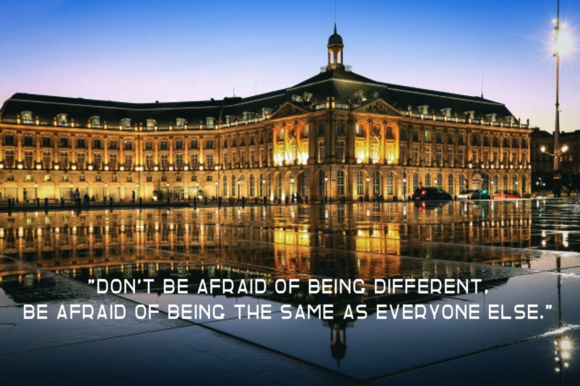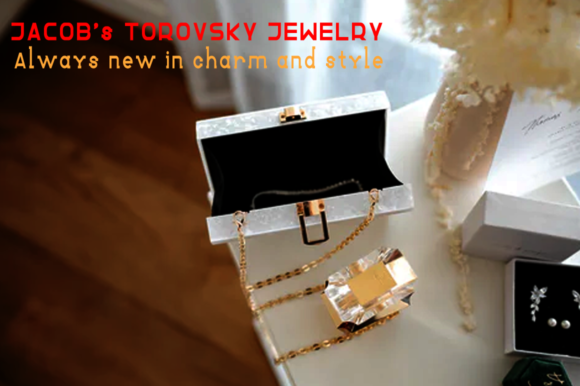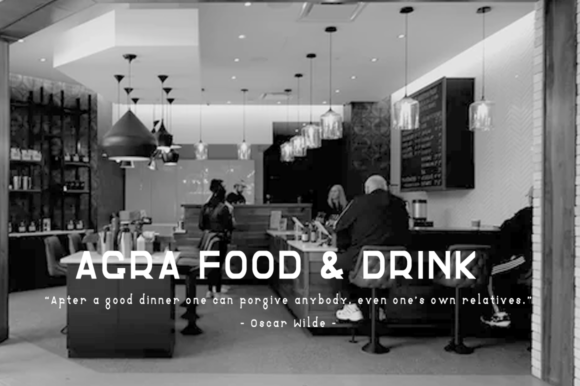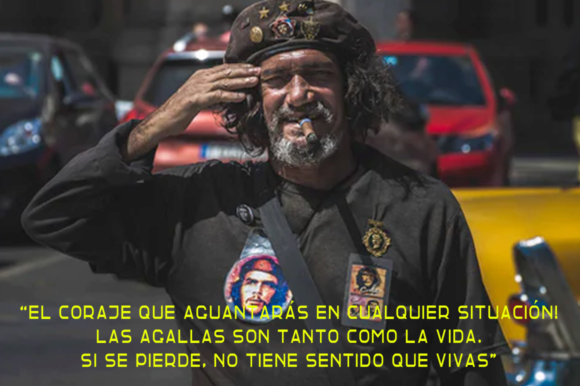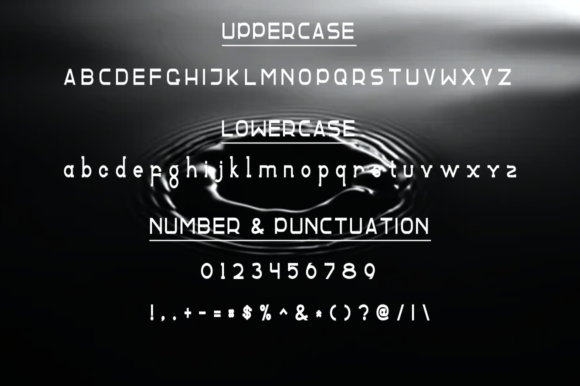
Bordeaux Font: Elevate Your Designs with a Simple yet Powerful Sans Serif Font
In the world of typography, fonts play a crucial role in making or breaking a design. A well-chosen font can elevate your creative project, making it stand out from the crowd. If you’re a designer or crafter looking for a font that exudes simplicity and techno appeal, look no further than the Bordeaux Font. In this article, we’ll delve into the world of Bordeaux Font, exploring its features, benefits, and uses.
What is Bordeaux Font?
Bordeaux Font is a sans serif font that boasts a clean and modern aesthetic. Its simplicity makes it an incredibly versatile font, suitable for a wide range of projects. Whether you’re designing a logo, brochure, website, or social media graphics, Bordeaux Font is an excellent choice. Its techno look gives it an edge, making it perfect for projects that require a modern and edgy feel.
Key Features of Bordeaux Font
- Simple and Clean Design: Bordeaux Font features a minimalist design that ensures clarity and legibility.
- Techno Appeal: The font’s techno look makes it perfect for projects that require a modern and edgy feel.
- Sans Serif: The font’s sans serif design ensures that it’s easy to read, even at small sizes.
- Highly Versatile: Bordeaux Font can be used for a wide range of projects, from logos and brochures to websites and social media graphics.
Benefits of Using Bordeaux Font
So, why choose Bordeaux Font for your next project? Here are just a few benefits of using this powerful font:
- Improved Readability: Bordeaux Font’s clean design ensures that your text is easy to read, even at small sizes.
- Enhanced Visual Appeal: The font’s techno look adds a modern touch to your designs, making them more visually appealing.
- Increased Versatility: Bordeaux Font can be used for a wide range of projects, making it a valuable addition to your font library.
- Easy to Pair: The font’s simple design makes it easy to pair with other fonts, ensuring that your designs look cohesive and professional.
Uses of Bordeaux Font
Bordeaux Font is an incredibly versatile font that can be used for a wide range of projects. Here are just a few ideas to get you started:
- Logo Design: Bordeaux Font is perfect for logo design, thanks to its clean and modern aesthetic.
- Brochures and Flyers: The font’s readability and visual appeal make it an excellent choice for brochures and flyers.
- Websites and Landing Pages: Bordeaux Font can be used to create modern and edgy websites and landing pages.
- Social Media Graphics: The font’s techno look makes it perfect for social media graphics, such as Facebook and Twitter headers.
| Font Name | Bordeaux Font |
| Author | Gatra Std |
In conclusion, Bordeaux Font is a simple yet powerful sans serif font that’s perfect for designers and crafters looking to elevate their creative projects. Its clean design, techno appeal, and versatility make it an excellent choice for a wide range of projects. Whether you’re designing a logo, brochure, website, or social media graphics, Bordeaux Font is sure to make your designs stand out. So why not give it a try and see the difference it can make?
With Bordeaux Font, you can add a modern touch to your designs, improve readability, and increase visual appeal. Its ease of use and pairing capabilities make it a valuable addition to your font library. Don’t miss out on the opportunity to take your designs to the next level with Bordeaux Font.